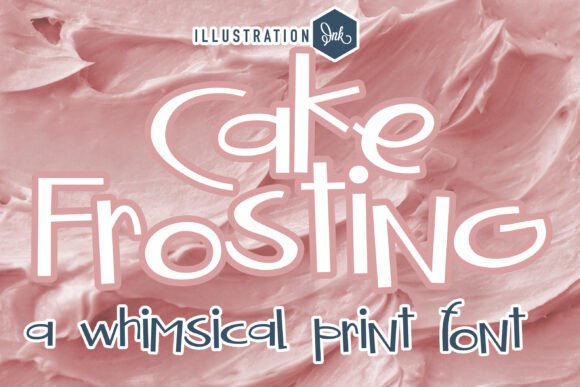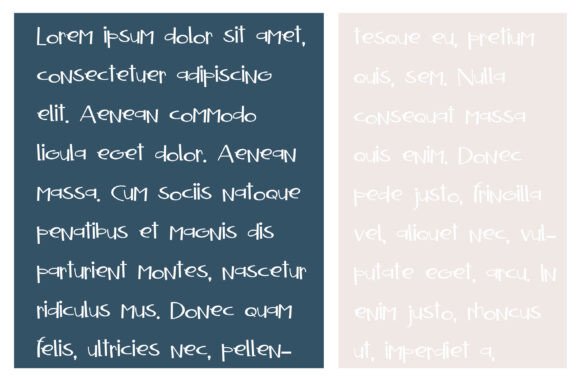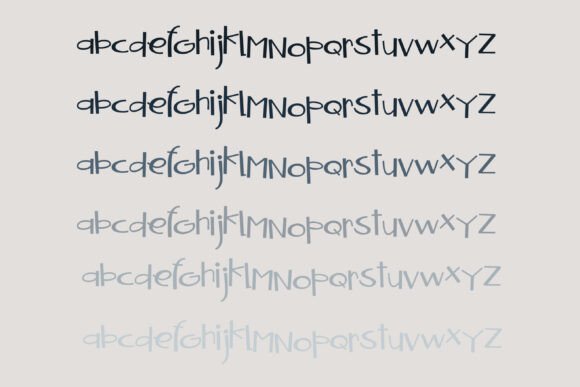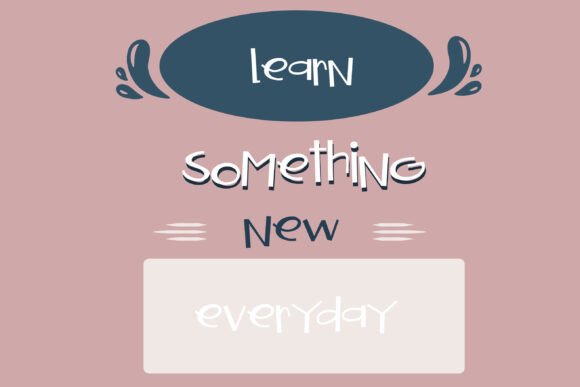
Cake Frosting Font
About the Cake Frosting Font
Elevate your designs with Cake Frosting Font, a font that combines sophistication with readability. This hand-crafted font is a youthful and fun font with a bouncy baseline.
Cake Frosting Font is ideally suited for headlines, short text blocks on packaging, and playful branding projects where a youthful energy is desired. Its bouncy baseline and handcrafted feel make it less suitable for body text or UI elements requiring high readability over long stretches. Avoid using it for large amounts of text.
The font’s core personality is undeniably fun and friendly. It projects a sense of lightheartedness and approachability. Pair it with a clean sans-serif like Open Sans for a balanced contrast, or a more geometric sans-serif like Futura for a modern edge. For a more whimsical feel, consider pairing it with a playful script font.
For a sophisticated yet approachable feel, pair it with a classic serif like Garamond or a slightly more modern serif such as Lora. Avoid pairing with other highly decorative or handwritten fonts, as this can create visual clutter and diminish readability.
Cake Frosting Font Example